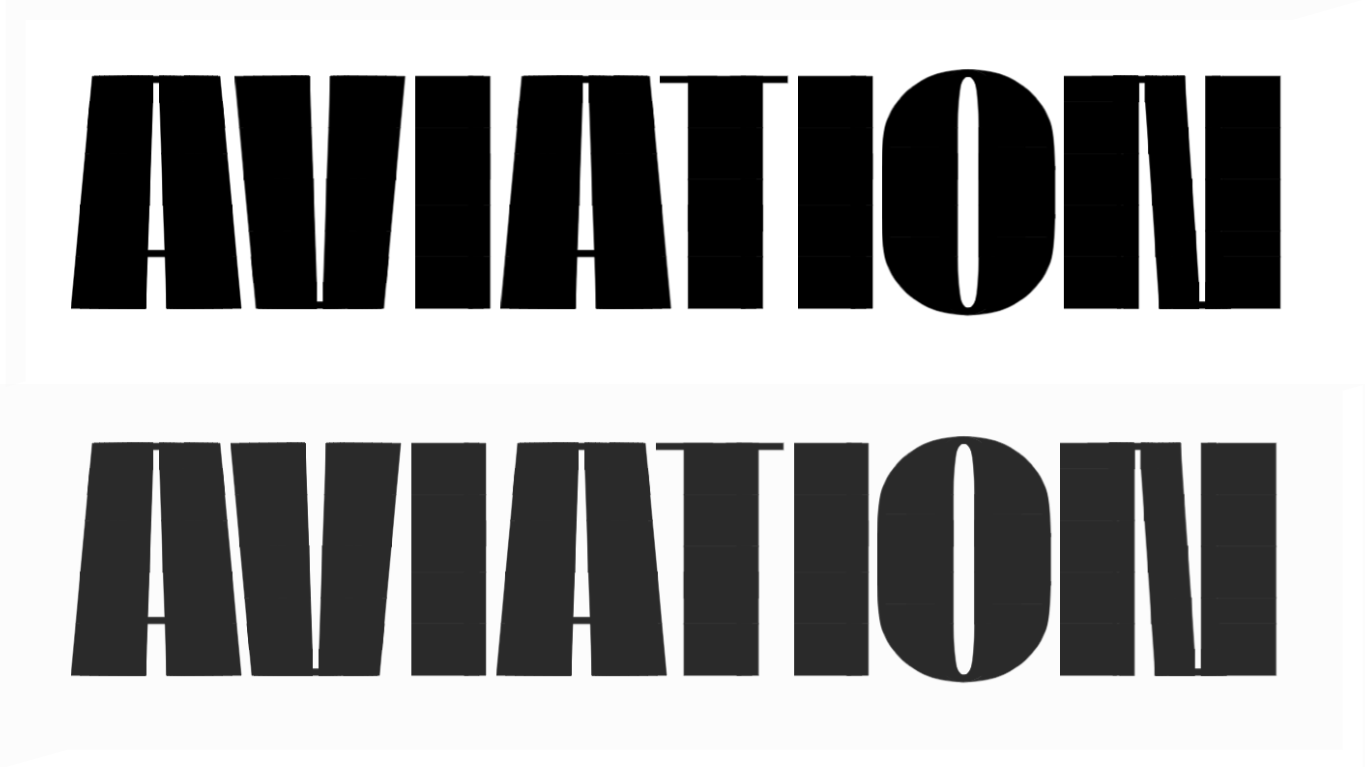
• Almost released this as an NFNW, but after a couple more hours in the editor, I realized I did want to finish this. Works best at larger sizes for short text.
Any suggestions to make the “N” less bulky would be greatly appreciated.
Also, kerning is in the works. I’ll see if I can finish it eventually.
Suggestions / feedback about the kerning pairs AV, VA, AW, WA, MV, VM, MW, & WM would be helpful—I can't quite figure out the spacing I like.
KERNING PAIRS COMPLETED (so far):
• (A-B)(A-z)
• (A-z)(A-B)
• f(a-z)
• (a-z)f
• a(A-U)
• (A-U)a
• 7(1-9)
• (1-9)7
Which of the kernings feel more accurate? I currently have the AV, VA, AW, WA, MV, VM, MW, & WM pairs at -0.6 (the one on the top), but I'm floating the idea of lowering the spacing to -0.75 (see the latter text). Anyways, what do you guys think looks better?